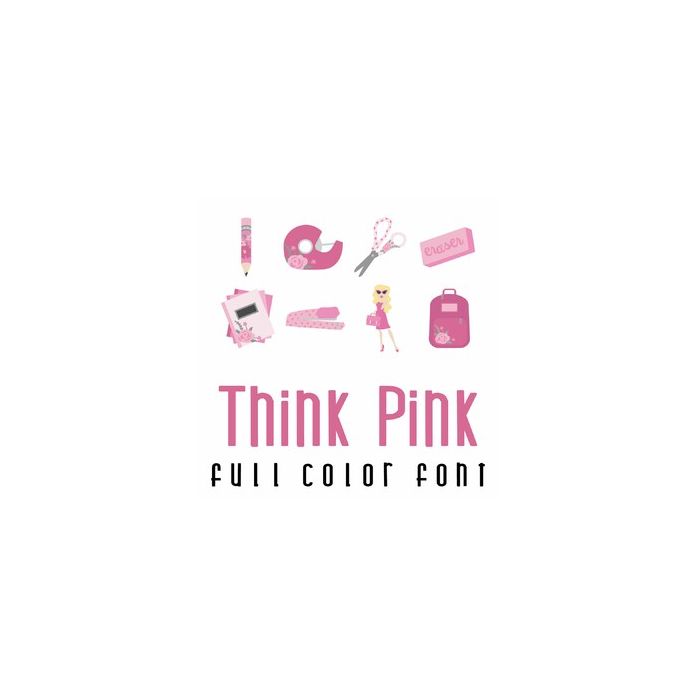
This adorable full color doodlebat font features beautiful floral school supplies. Perfect for cards, crafts, gifts, decor, scrap book pages, planner stickers and more!